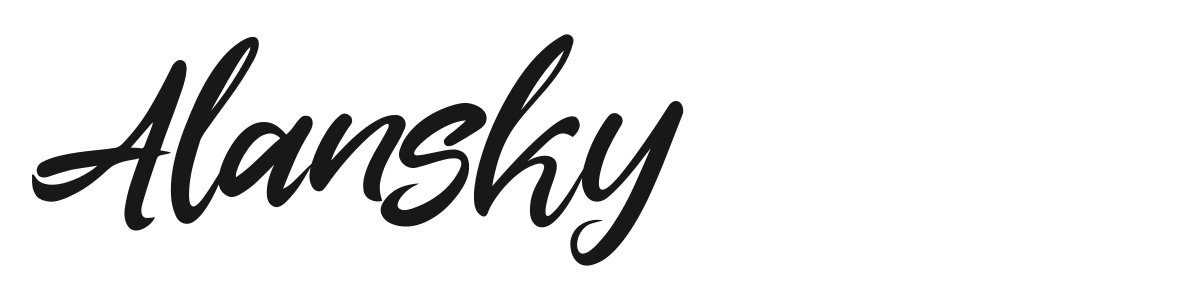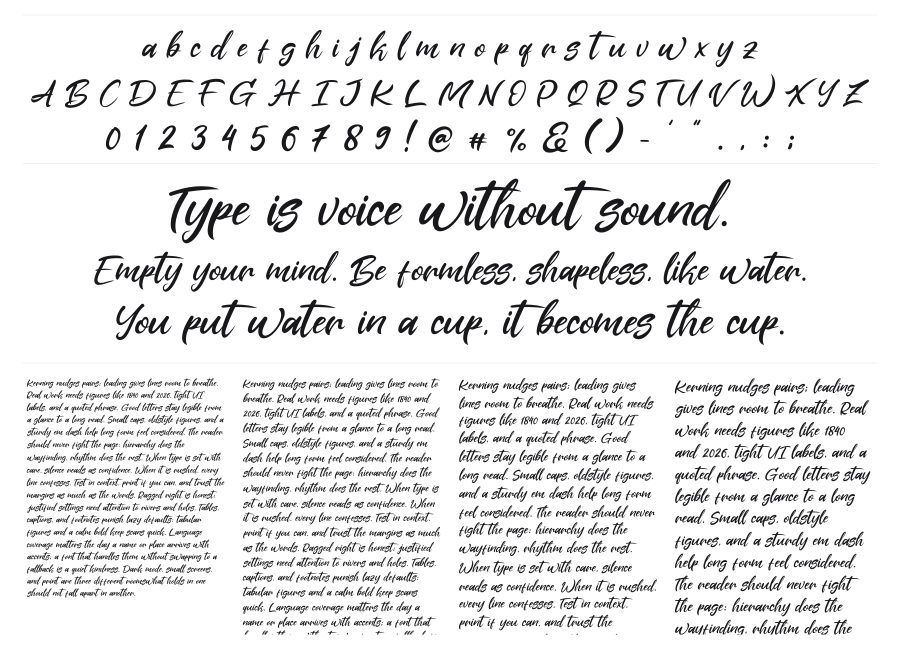
Alansky
Alansky is a casual brush script with lively ink energy and strong stroke contrast between thick and thin. Sweeping connections and generous ascenders give it a warm, handcrafted feel that works naturally for logos, packaging, and social media graphics. The slightly irregular baseline keeps it from feeling stiff or mechanical.